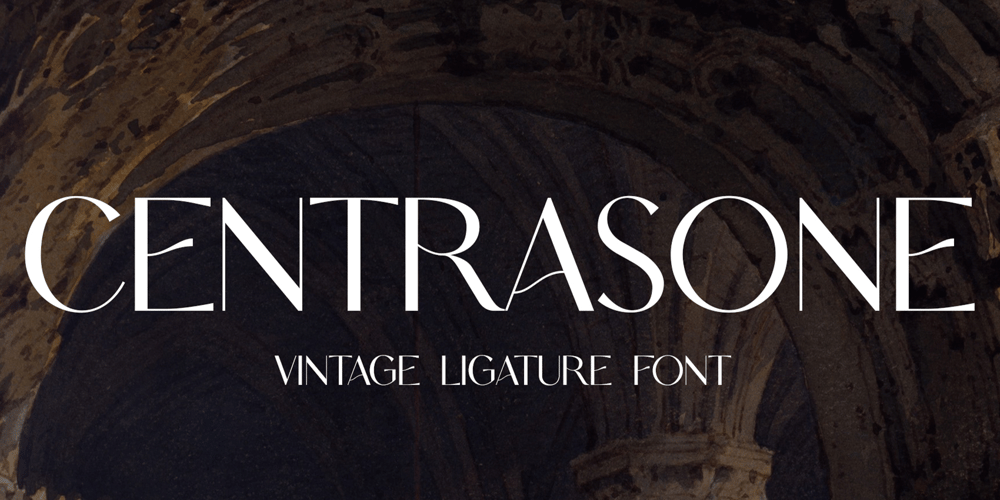
Centrasone Font Family was designed by Hero and published by UICreative. Centrasone contains 1 styles and family package options. Introducing our new product the name CENTRASONE Vintage Ligature Serif Font. Modern Serif font that feels beautiful classy, elegant, and modern. This font is perfectly suited for a wide variety of projects, such as signature, stationery, logo, wedding, typography quotes, magazine or book covers, website headers, clothing, branding, packaging design, and more. Also for fashion-related branding or editorial design and displays both masculine and feminine qualities.